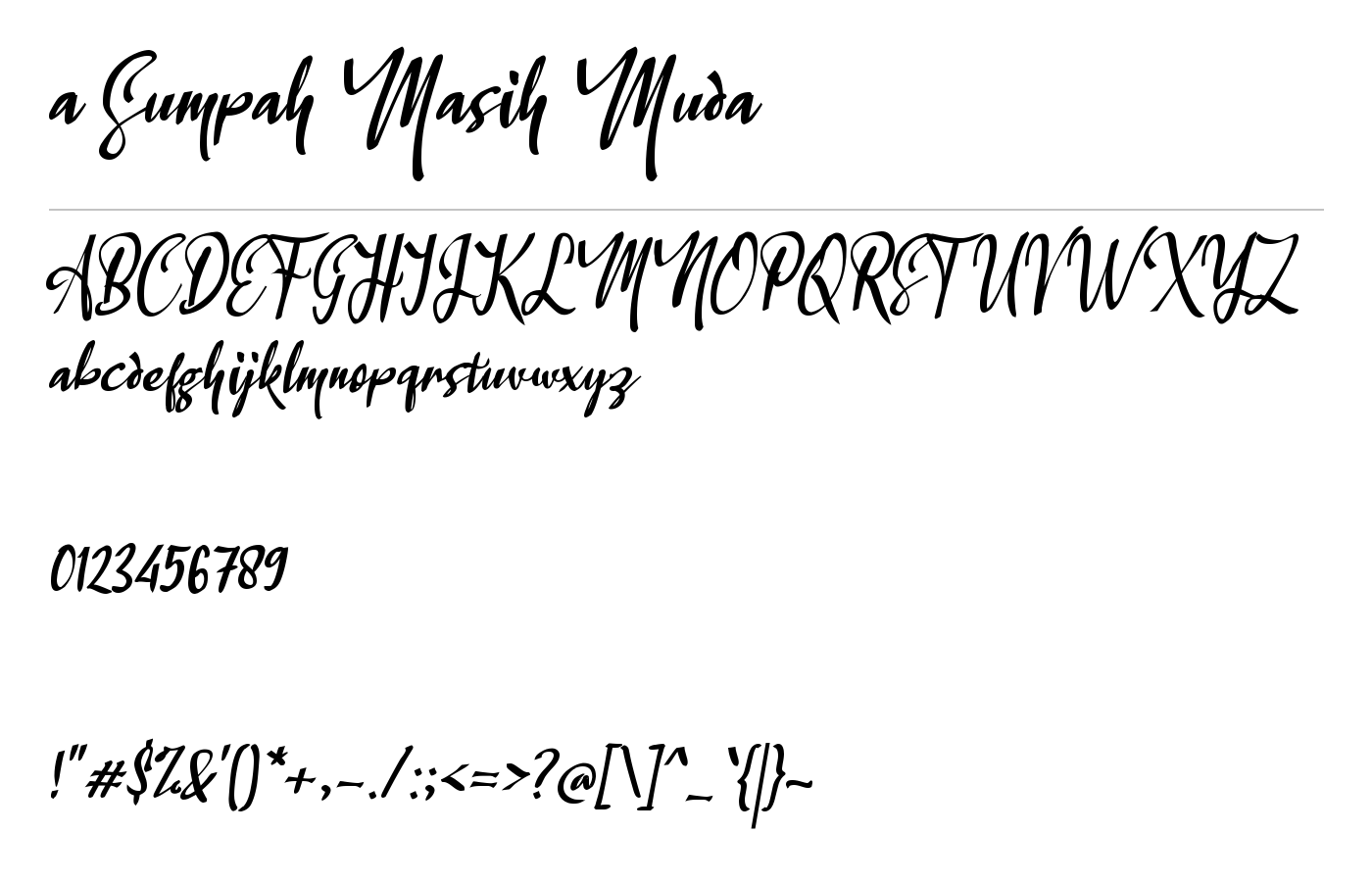
a Sumpah Masih Muda is a lively and expressive script font that combines elegant calligraphic strokes with a modern, handwritten feel. Its varying stroke widths and fluid letterforms create a sense of movement and personality, making it ideal for creative and stylish branding, invitations, or any design that seeks a touch of youthful sophistication. This font works well in headlines and logos where a distinctive, artistic flair is desired.
a Sumpah Masih Muda Font